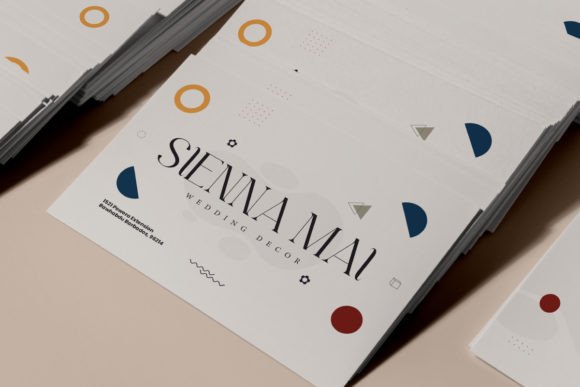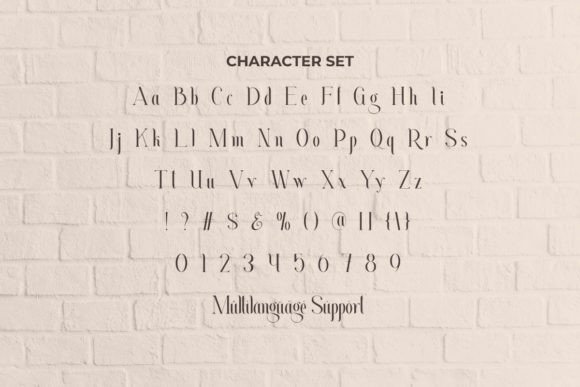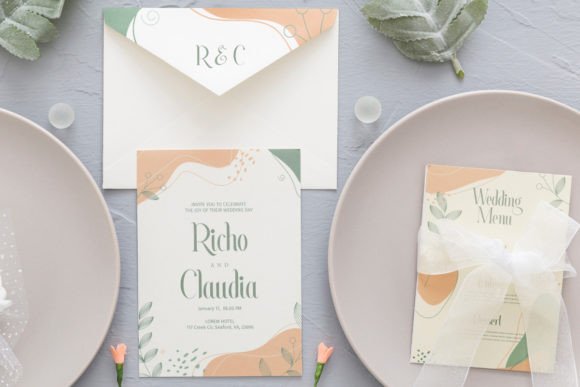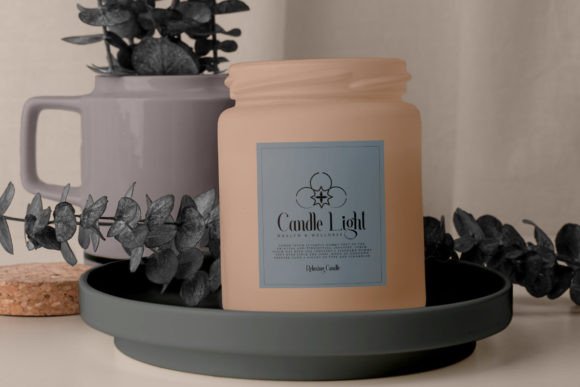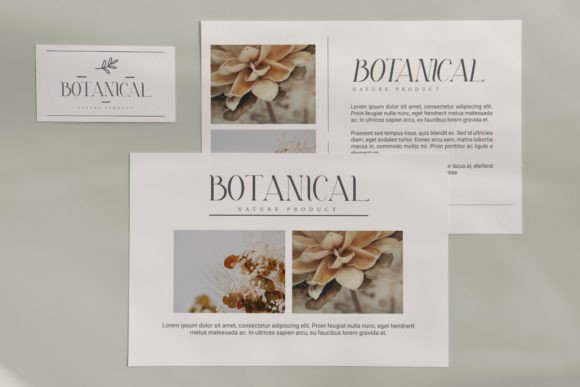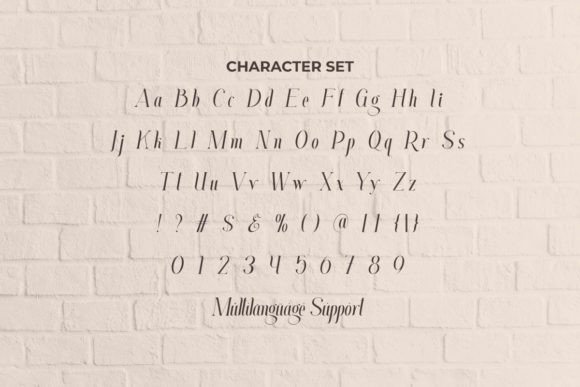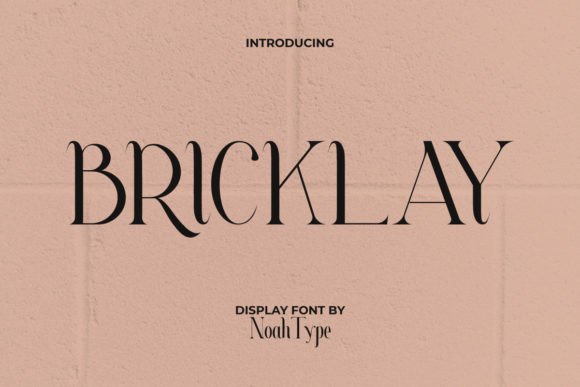
Bricklay Font: Elevate Your Designs with Sophistication and Professionalism
In the world of typography, a well-crafted font can make all the difference in the success of a design project. For designers and crafters seeking a sleek and modern serif font that exudes sophistication and professionalism, look no further than Bricklay. This versatile font is perfect for a wide range of applications, from corporate branding to editorial layouts, and is sure to add a touch of refinement to any composition.
The Characteristics of Bricklay Font
Bricklay is a masterfully designed serif font that boasts clean lines and balanced proportions. Its sleek and modern aesthetic makes it an ideal choice for designers seeking to create a professional and polished look. The font’s timeless elegance ensures that it will remain a relevant and stylish choice for years to come, making it a valuable addition to any designer’s toolkit.
Key Features of Bricklay Font
• Clean Lines: Bricklay’s clean lines and minimalist design make it perfect for use in a variety of applications, from digital media to print materials.
• Balanced Proportions: The font’s balanced proportions ensure that it remains legible and visually appealing, even at smaller sizes.
• Timeless Elegance: Bricklay’s classic design ensures that it will never go out of style, making it a valuable investment for designers and crafters.
• Versatility: Bricklay is suitable for use in a wide range of design projects, from corporate branding to editorial layouts, and can be used to create a cohesive and professional look.
Applications for Bricklay Font
Bricklay’s versatility and sophistication make it an excellent choice for a wide range of design projects. Some potential applications for Bricklay include:
• Corporate Branding: Use Bricklay to create a professional and polished look for your company’s logo, website, and marketing materials.
• Editorial Layouts: Bricklay is perfect for use in editorial layouts, such as magazines, newspapers, and books, where its clean lines and balanced proportions can help to create a clear and readable design.
• Digital Media: Bricklay can be used to create a professional and modern look for digital media, such as websites, social media graphics, and presentations.
• Print Materials: Bricklay is suitable for use in a variety of print materials, including brochures, flyers, and business cards.
Tips for Using Bricklay Font
• Use it as a headline font: Bricklay’s bold and sophisticated design makes it perfect for use as a headline font, where it can help to grab the reader’s attention.
• Pair it with a sans-serif font: For body text, consider pairing Bricklay with a sans-serif font to create a clear and readable design.
• Experiment with different sizes: Bricklay’s balanced proportions ensure that it remains legible at a variety of sizes, so don’t be afraid to experiment with different sizes to find the one that works best for your design.
In conclusion, Bricklay is a sleek and modern serif font that exudes sophistication and professionalism. Its clean lines, balanced proportions, and timeless elegance make it perfect for a wide range of design projects, from corporate branding to editorial layouts. With its versatility and polished aesthetic, Bricklay is sure to become a valuable addition to any designer’s toolkit. So why wait? Elevate your designs with the solid foundation of Bricklay and discover the difference that a well-crafted font can make.